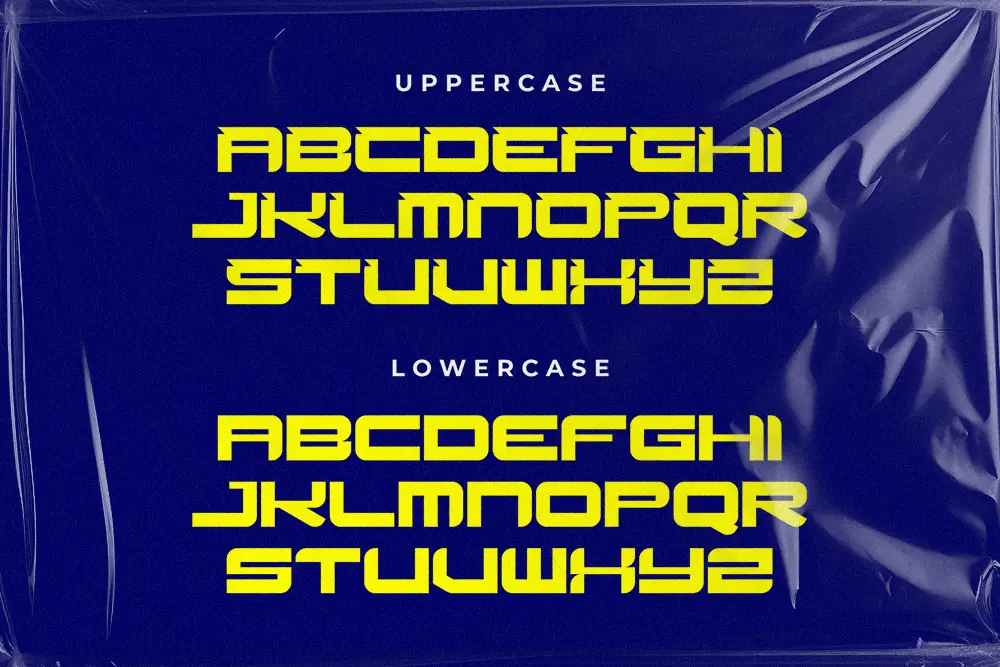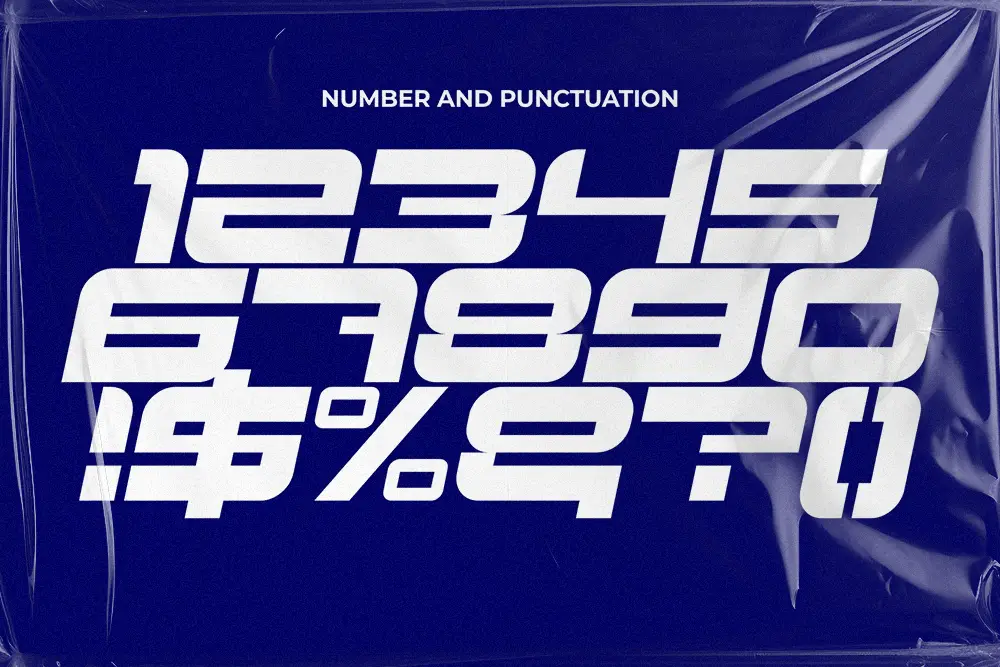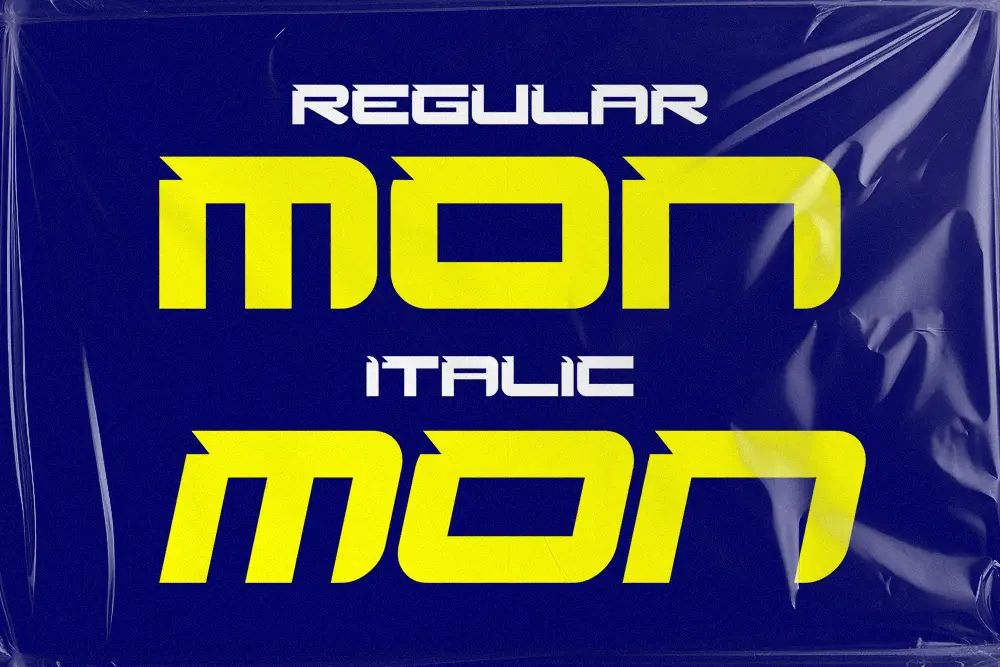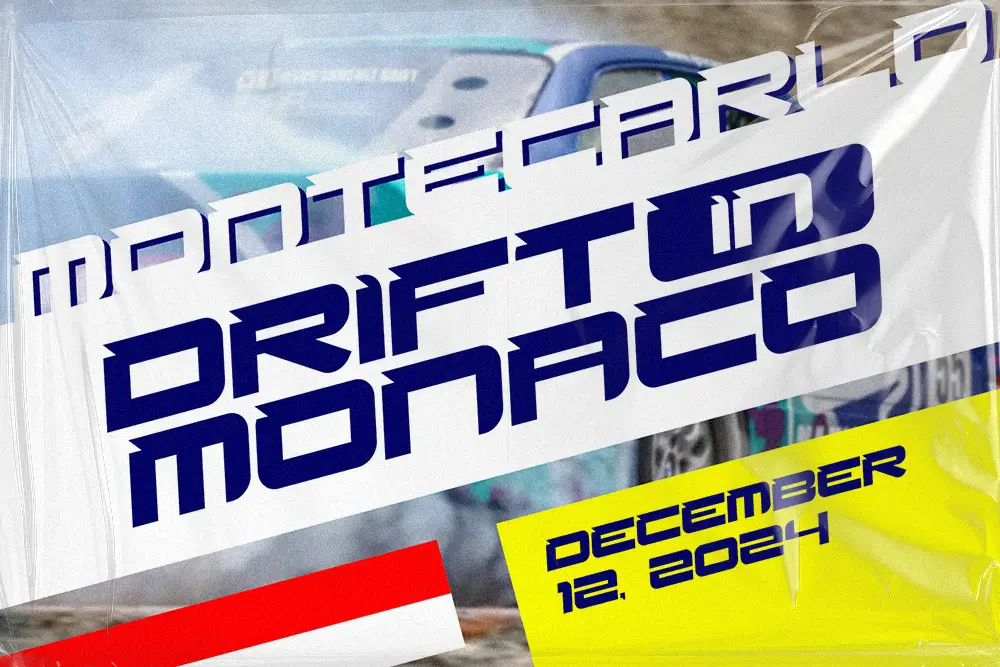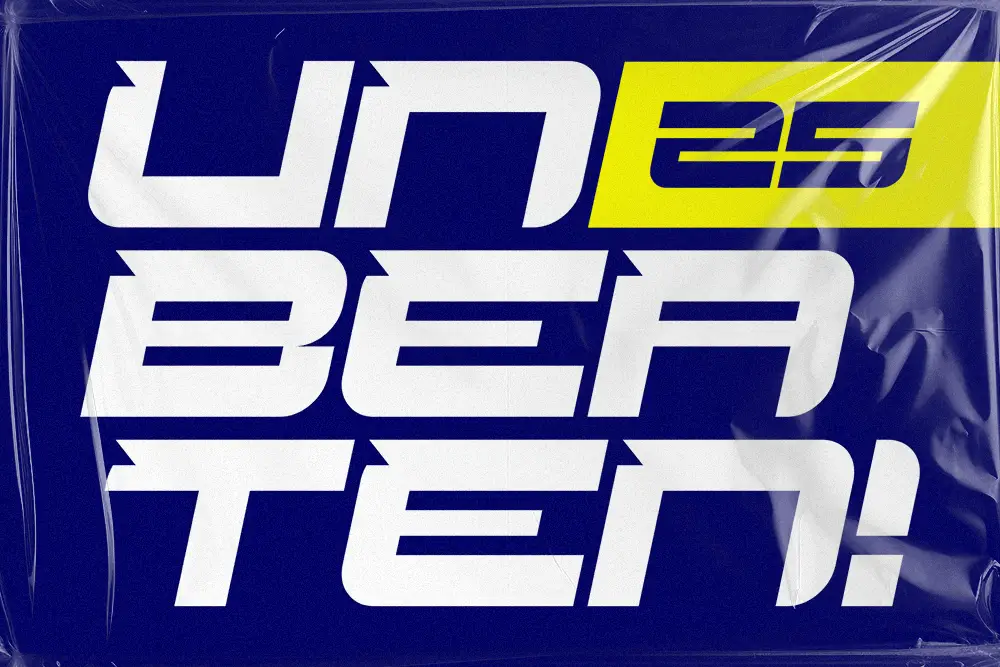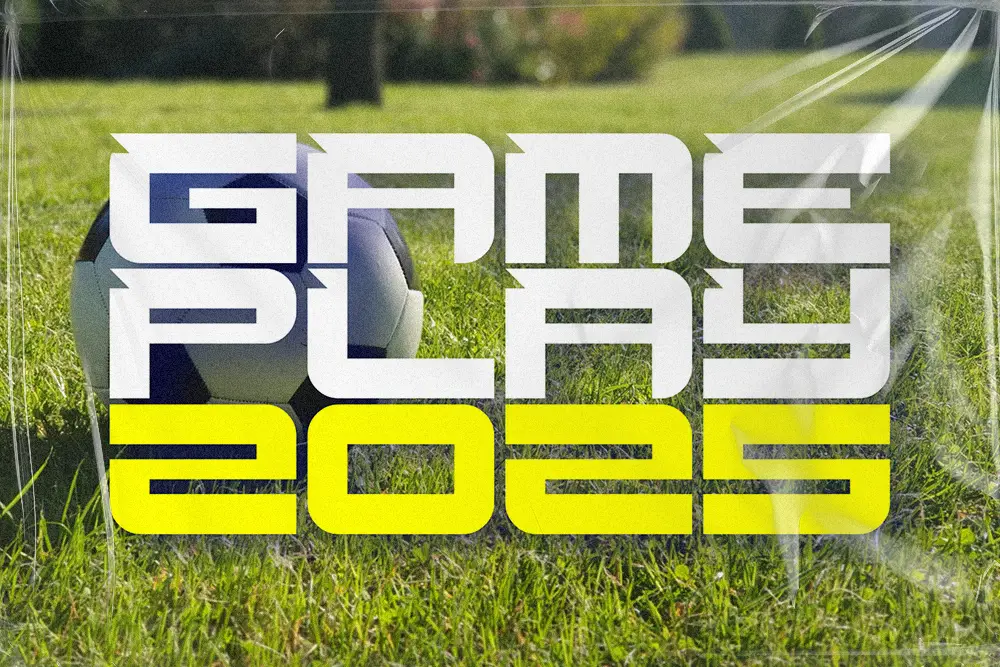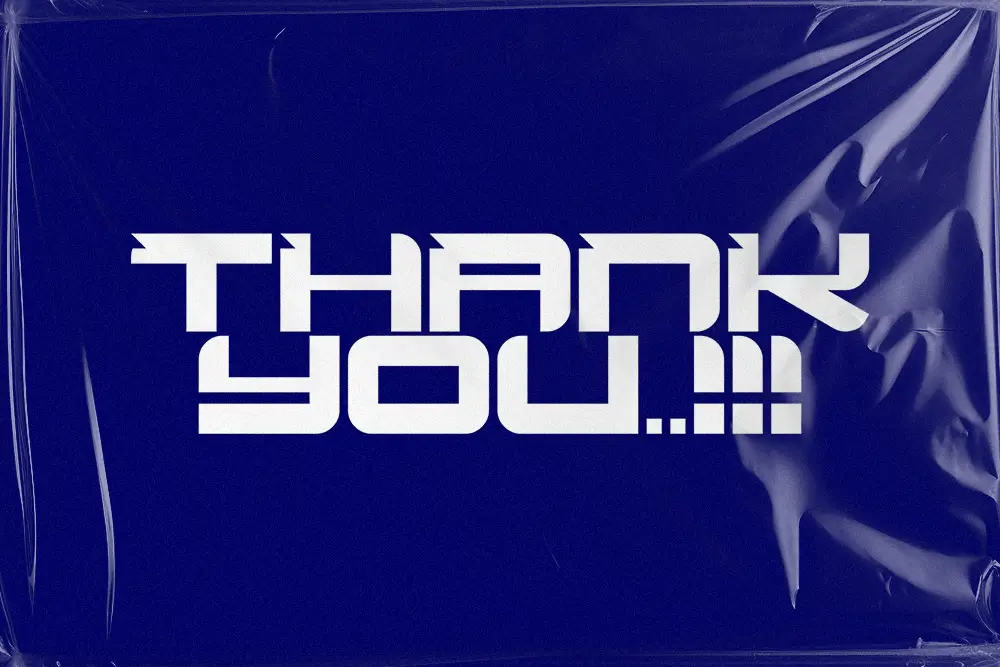
Monark Slab – Sport Display Font for Bold and Powerful Design
Typography defines how audiences feel about your brand, and nothing conveys energy and confidence better than a sport display font. Monark Slab is crafted with bold slab serifs, extended proportions, and dynamic styling that makes every design look strong and impactful. Available in both Regular and Italic styles, Monark Slab is the versatile solution for logos, posters, esports branding, and athletic campaigns.
From stadium graphics to esports overlays, this sport display font ensures that your designs stand out with authority and boldness.
Sport Display Font with Slab Serif Strength
Monark Slab is not just another display font—it’s a sport display font that combines slab serif stability with athletic energy. Its sturdy letterforms and confident weight make it ideal for modern sports branding, event posters, and bold advertising campaigns.
The italic version adds movement and speed, making it perfect for projects that need to communicate agility and momentum. Together, Regular and Italic give designers a complete toolkit to energize any design project.
Key Features of Monark Slab – Sport Display Font
- Uppercase & Lowercase: Complete alphabet for flexible applications
- Regular & Italic Styles: Versatility to create contrast and energy
- Multilingual Support: Extended Latin characters for global use
- Slab Serif Construction: Bold and confident design for maximum impact
- Perfect for Display Use: Optimized for logos, posters, headlines, and esports visuals
Why Designers Love Monark Slab
Designers across industries are turning to Monark Slab as their go-to sport display font because it delivers both impact and clarity.
- Strength and Authority: Its bold slab serifs make headlines unforgettable
- Dynamic Options: With both Regular and Italic, it adapts to multiple moods
- Clarity Across Mediums: Works perfectly for print and digital projects alike
- Professional Quality: Carefully crafted spacing ensures readability at all sizes
Monark Slab for Logos and Sports Branding
Sports and esports logos need fonts that communicate determination and presence. Monark Slab is the sport display font built for this purpose. Its bold slab serifs and extended proportions create strong brand recognition, while its italic style adds speed and agility.
Monark Slab for Posters and Headlines
Event posters require instant impact. Monark Slab makes every headline pop. As a sport display font, it thrives in large formats, ensuring your message is bold and unmistakable.
From sports tournaments to racing events, Monark Slab’s slab serif design adds energy and power to posters, banners, and advertising layouts.
Monark Slab in Esports and Digital Media
Esports audiences demand bold and modern visuals. Monark Slab answers with a sport display font style that feels dynamic and professional. Its italic version gives digital projects a sense of speed, while the bold slab serifs anchor designs with authority.
Whether for YouTube thumbnails, Twitch banners, or competitive gaming graphics, Monark Slab is the sport display font that ensures your design has energy and power.
- Character Set: Uppercase, Lowercase, Numbers, Punctuation
- Category: Sport Display Font
- Best Uses: Logos, Posters, Esports, Headlines, Branding, Digital Media
Why Monark Slab is the Sport Display Font You Need
Typography trends demand bold, energetic fonts that capture attention. Monark Slab embodies these qualities with its slab serif strength and dual styles. As a sport display font, it communicates authority, confidence, and motion—perfect for both print and digital platforms.
Designers who use Monark Slab know they’re getting a font that lasts, works globally, and adapts to every creative need.
Monark Slab – Sport Display Font is more than just a typeface. It’s a complete design tool for professionals who want bold branding, athletic energy, and visual impact. With Regular and Italic styles, uppercase and lowercase sets, multilingual support, and flexible file formats, Monark Slab gives you the power to create designs that resonate.
If you want your logos, posters, and esports visuals to stand out, Monark Slab is the sport display font you’ve been waiting for.